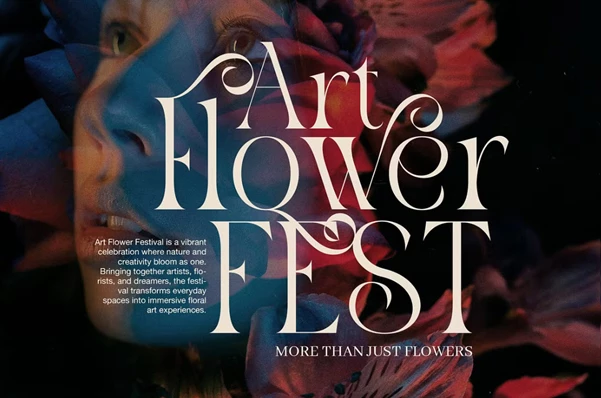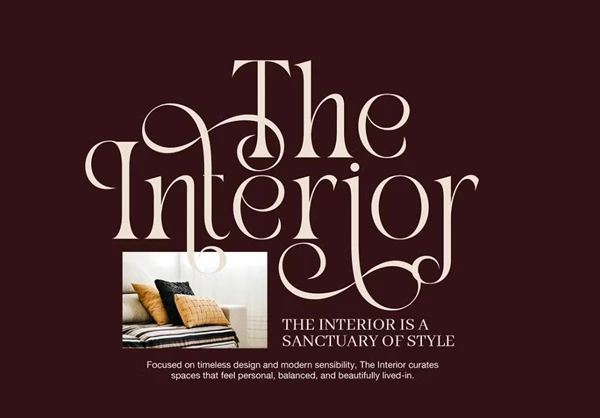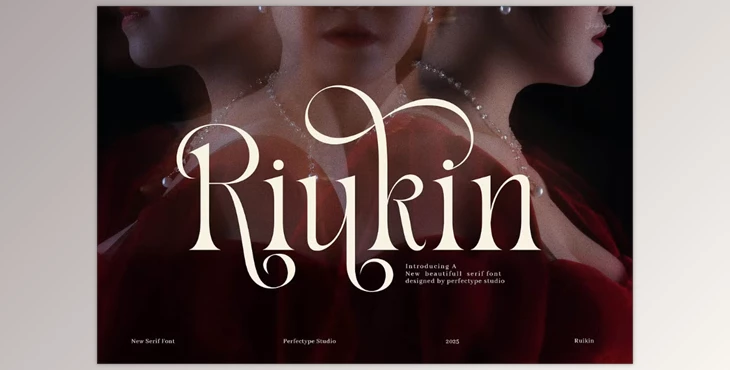
Riukin Elegant Serif Font:
The Riukin font is a modern serif. The combination of new and nostalgia makes this font universally usable, from branding to editorial, from weddings to packaging; it provides a polished, professional appearance for anything while adding a level of sophistication and readability.
Riukin is composed of clean lines and soft curves. They render a powerful existence and readability without being too harshly visible. It works well as a display and in the body. It also presents some special ligatures and stylistic alternates for additional typographical flair.
- Serif style with a modern, classic twist
- Readable, versatile, and usable across the board
- For branding, editorial, display, packaging, etc.
- Ligatures, stylistic alternates
- For web and print projects
Riukin gives your typography a solid yet soft experience; it's professional yet welcoming. There's barely any effort on the designer's end required for memorable typography when this font is used. Ultimately, Riukin is successful because it's all you need if you're searching for a timeless serif.